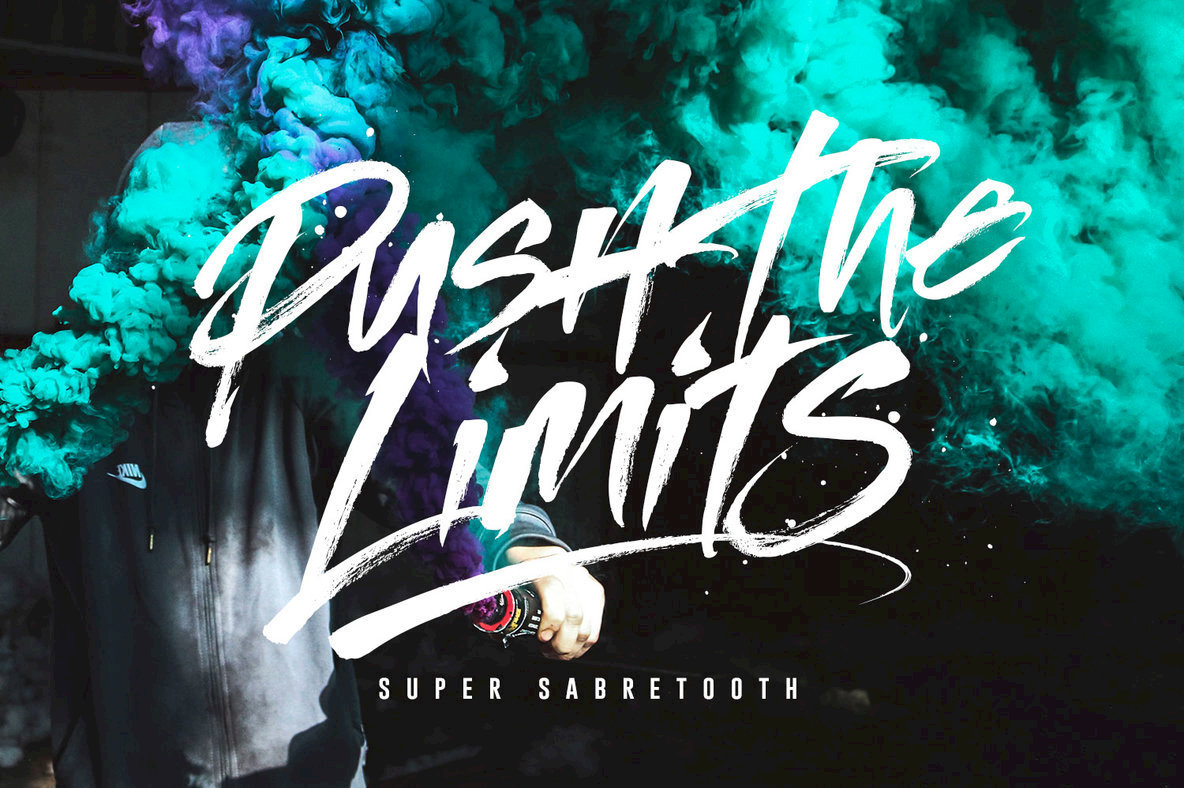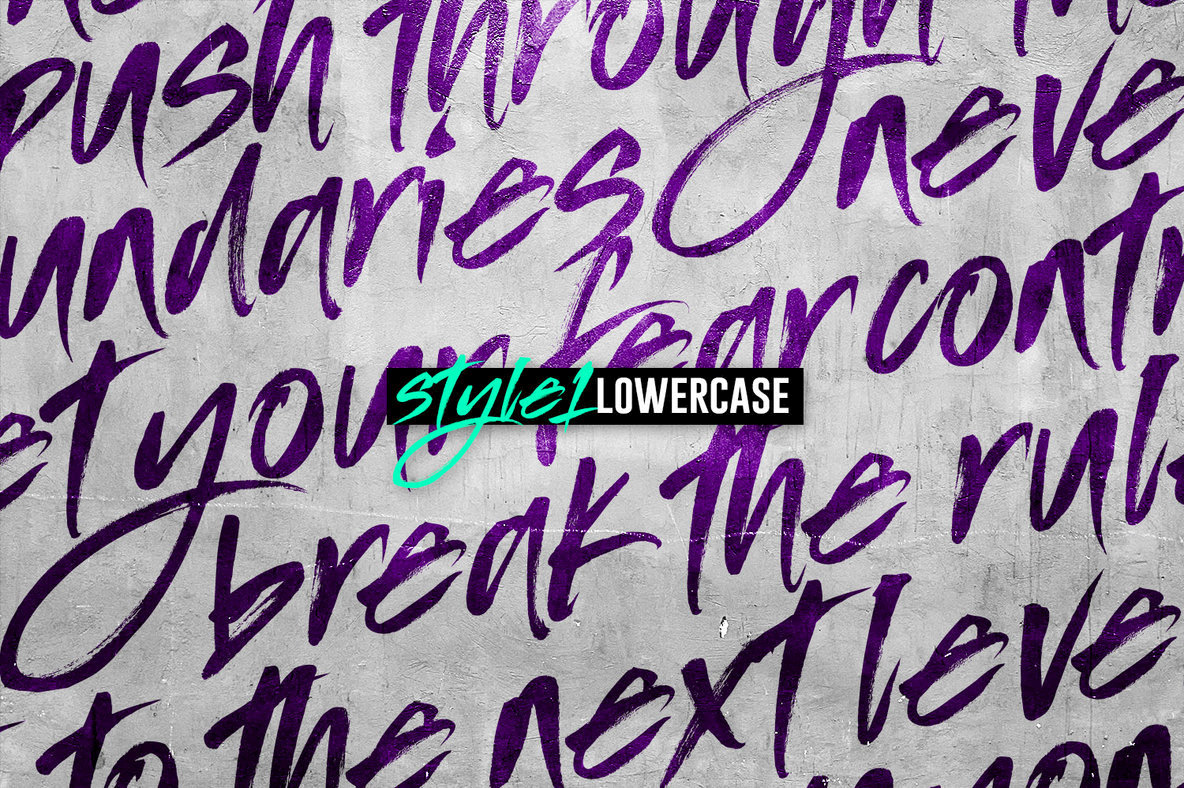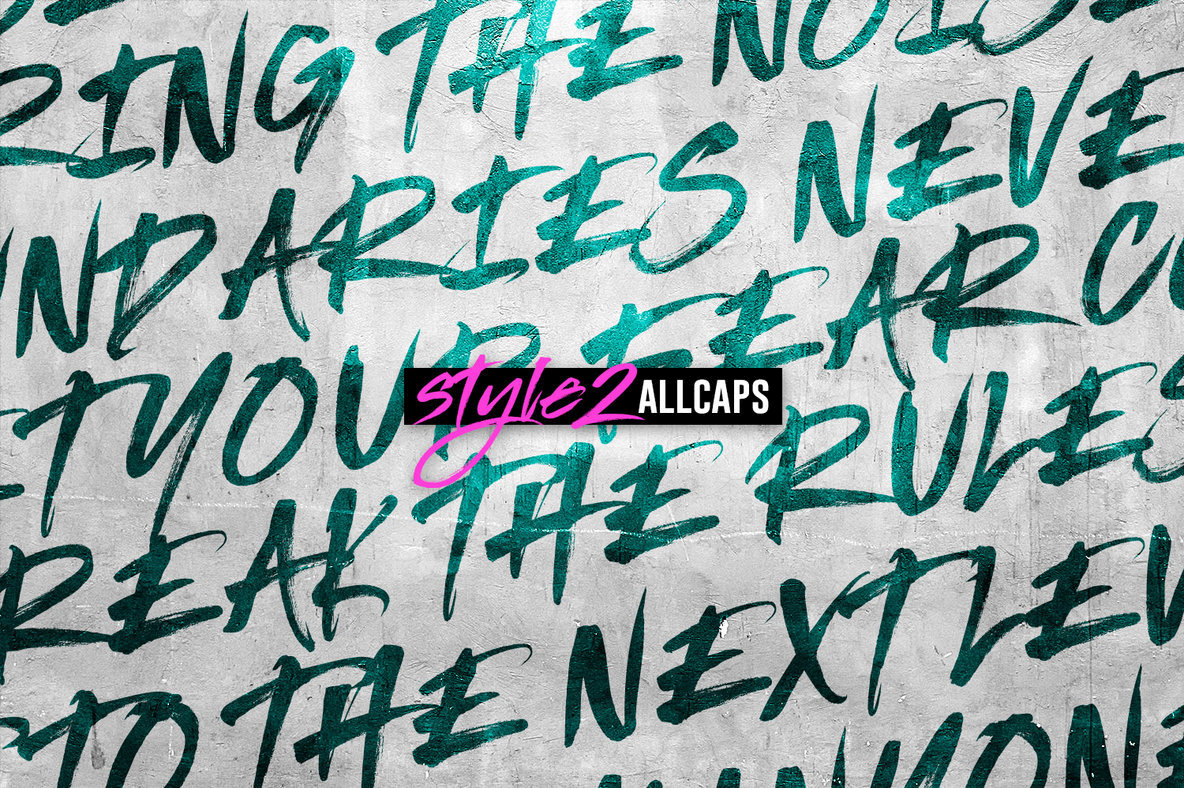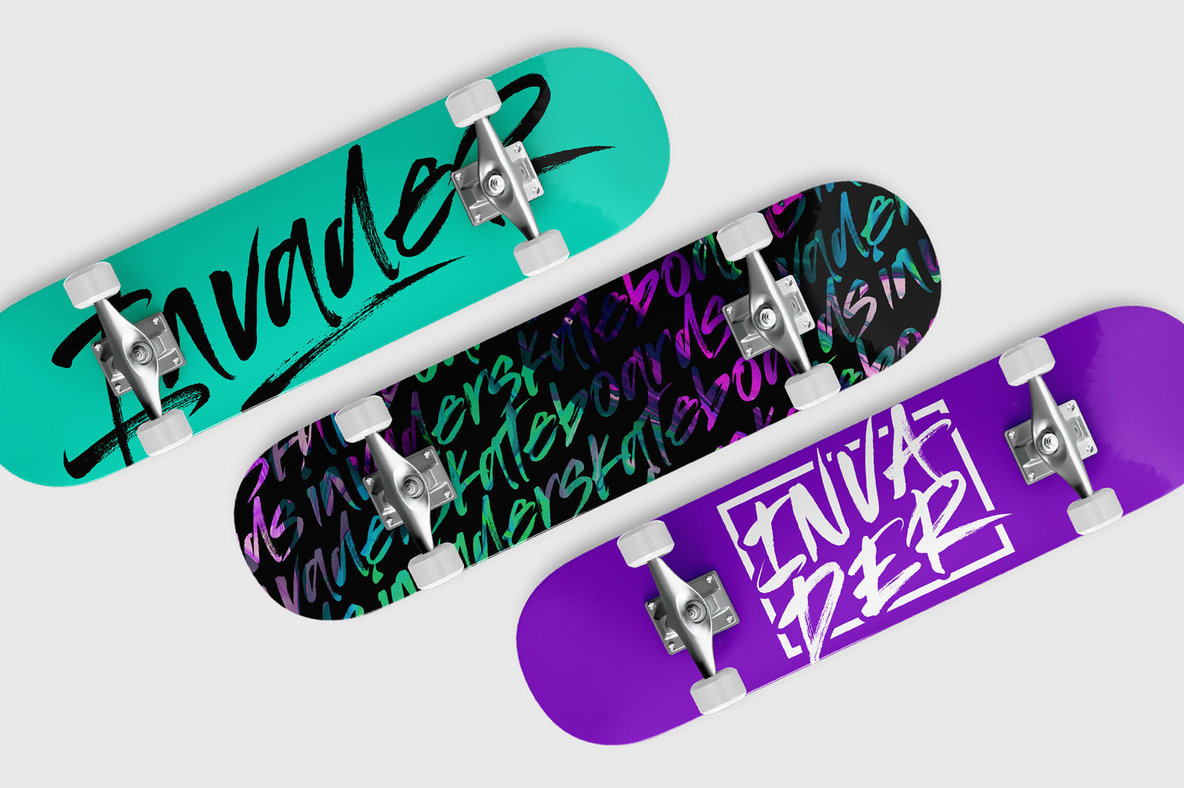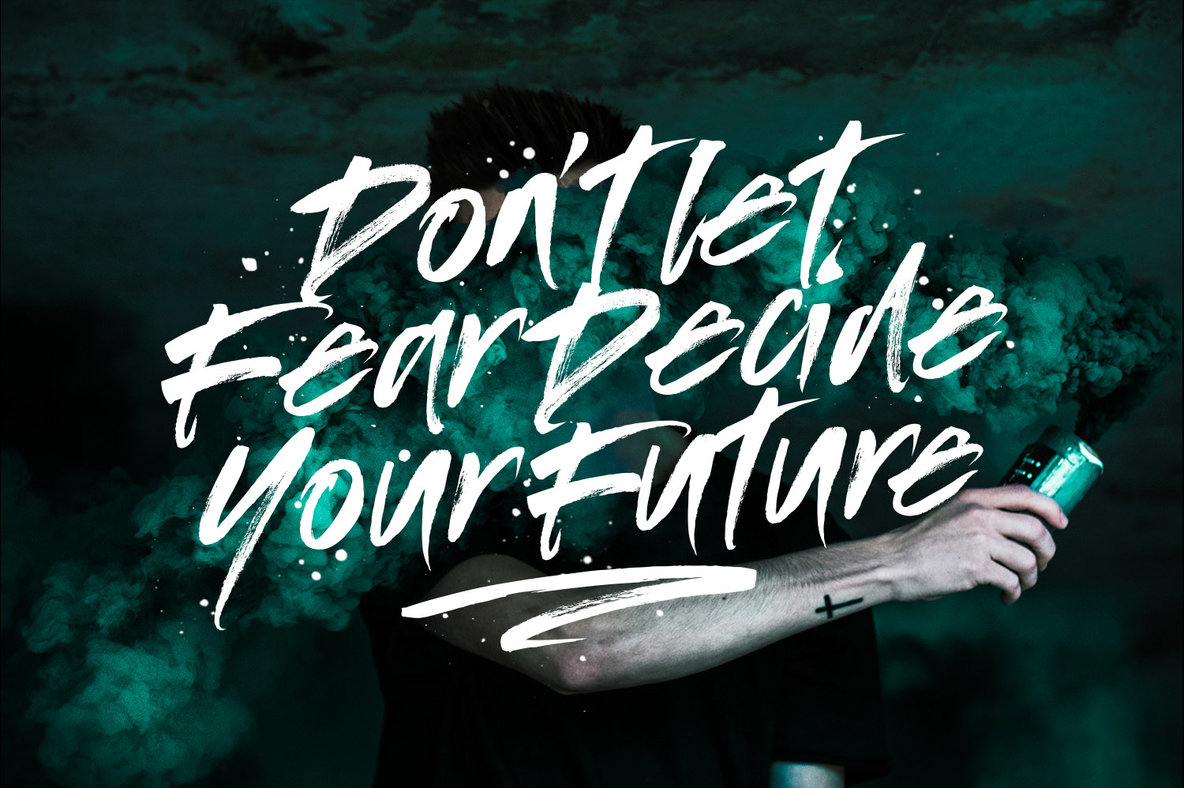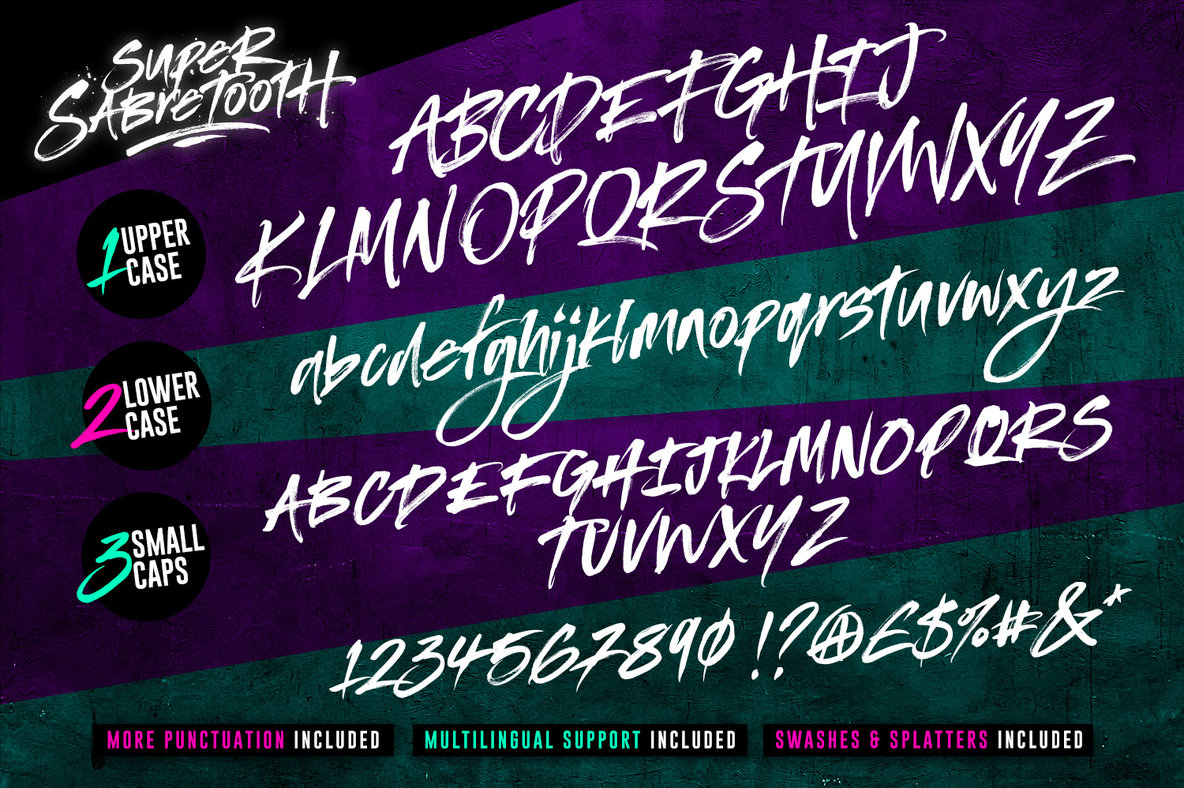
Take your typography to the next level with Super Sabretooth. A vigorous, rebellious brush font designed to bring the noise, start the fun, and leave any inhibitions at the door. It pushes lettering limits to the extreme and breaks down any boundaries on it's journey there.
Super Sabretooth is packed full of great features & added extras, providing everything you need to create highly charged typography designs. Here's what's under the hood.
1. Super Sabretooth • A high energy brush font containing upper & lowercase characters, numerals and a large range of punctuation.
2. Super Sabretooth All Caps • This is a second version of Super Sabretooth, with all lowercase characters replaced with a brand new set of small-caps. Use this font as a larger & louder alternative to the regular version.
Quick Tip! Listen up y'alls! If you want more freedom, you can combine the two font sets together to create truly awesome customised typography, they will work in harmony as well as being strong standalone fonts. There are no rules with it - play around, mix it up, have fun, and enjoy the ride!
3. Super Sabretooth Extras • Still looking for even MORE features? Alrighty, check out this extra font containing 17 swashes and 9 splatters, designed to add the perfect finish touch to underline & exaggerate your Super Sabretooth lettering. Simply type any a-z character in this font to generate the extras.
Push the Limits.